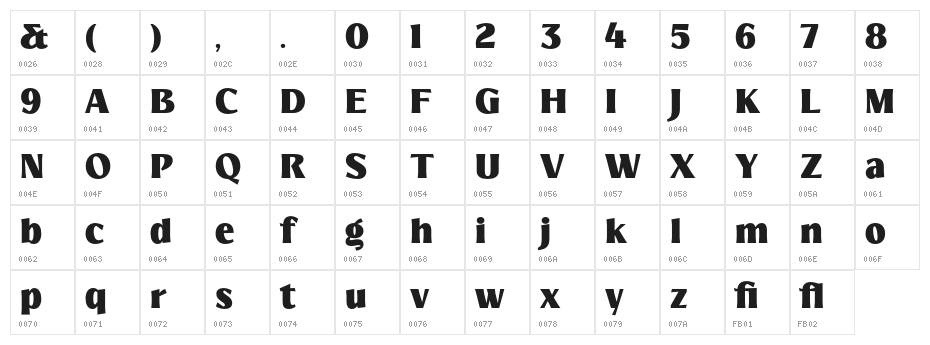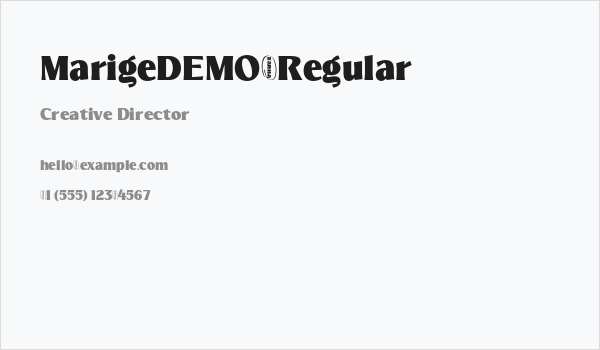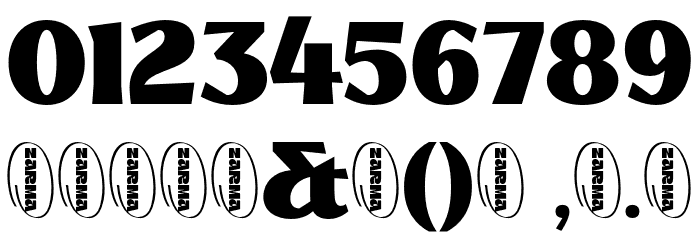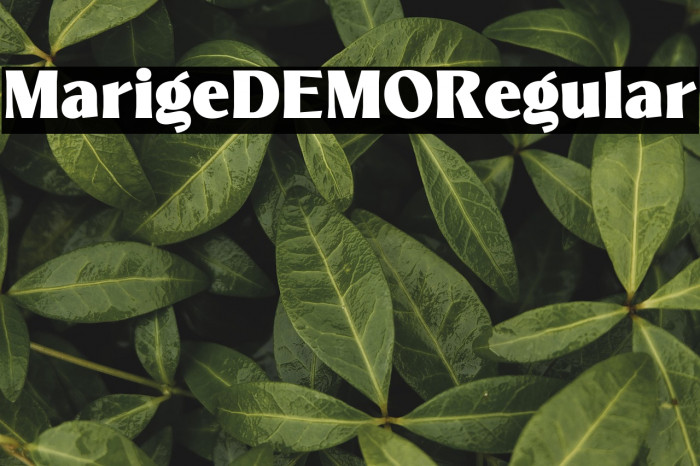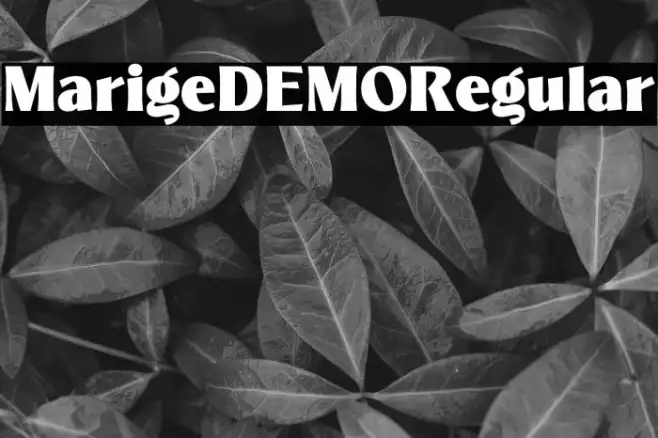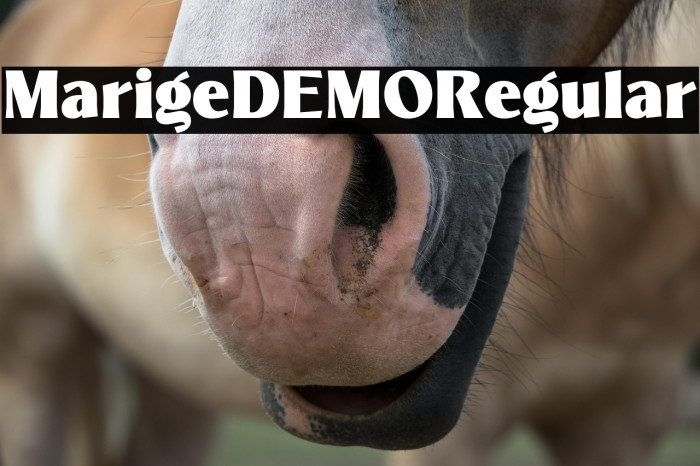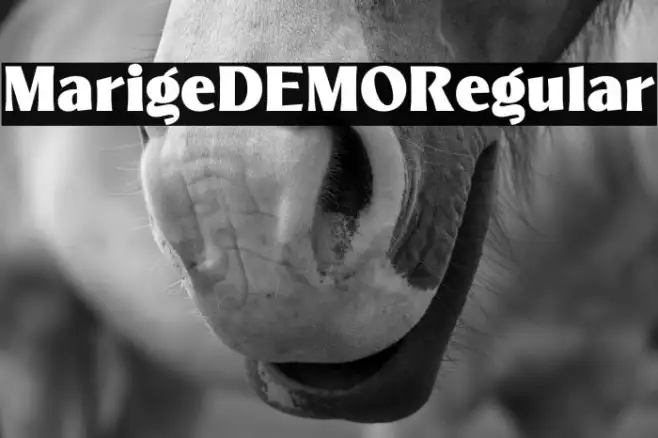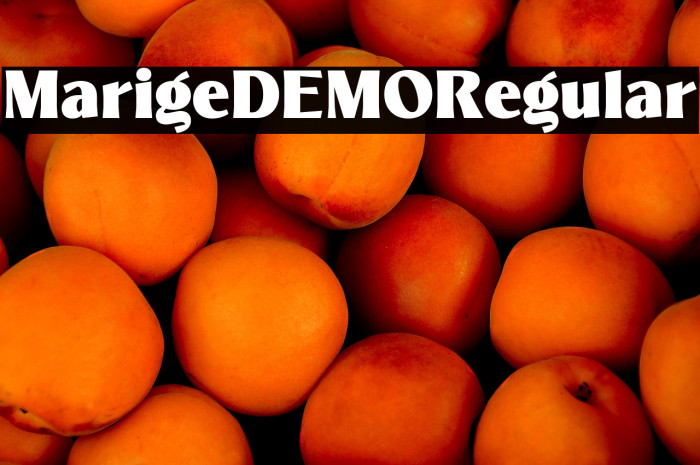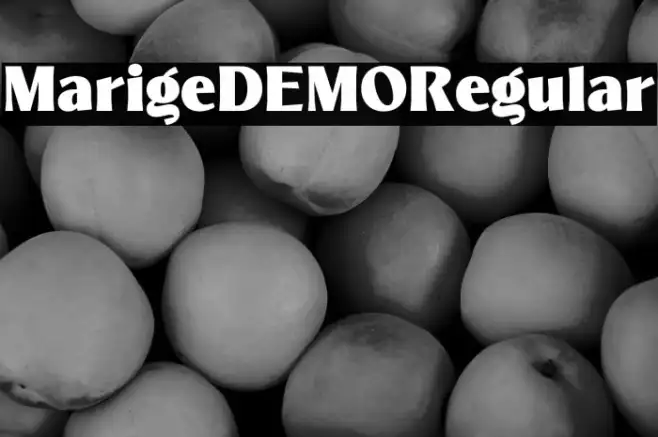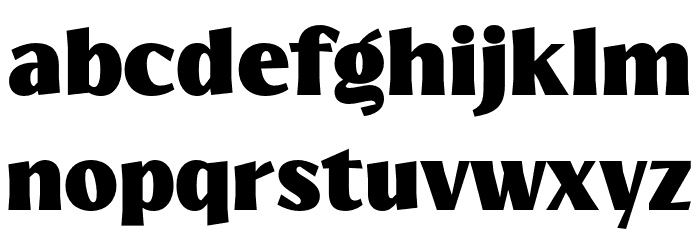
MarigeDEMO-Regular Font
MarigeDEMO-Regular Description
This font features a bold and dynamic style with a strong presence. The uppercase letters are robust and slightly condensed, giving a sense of power and authority. The lowercase letters maintain a consistent weight, providing a harmonious flow. The numerals are clear and distinct, ensuring readability. Special characters are creatively designed, adding a unique flair. The overall appearance is modern with a touch of vintage charm, making it versatile for various design needs.
| Overall Style | Modern, Vintage |
| Proposed Projects | Ideal for branding, poster design, headlines, and advertising materials where a strong visual impact is desired. |